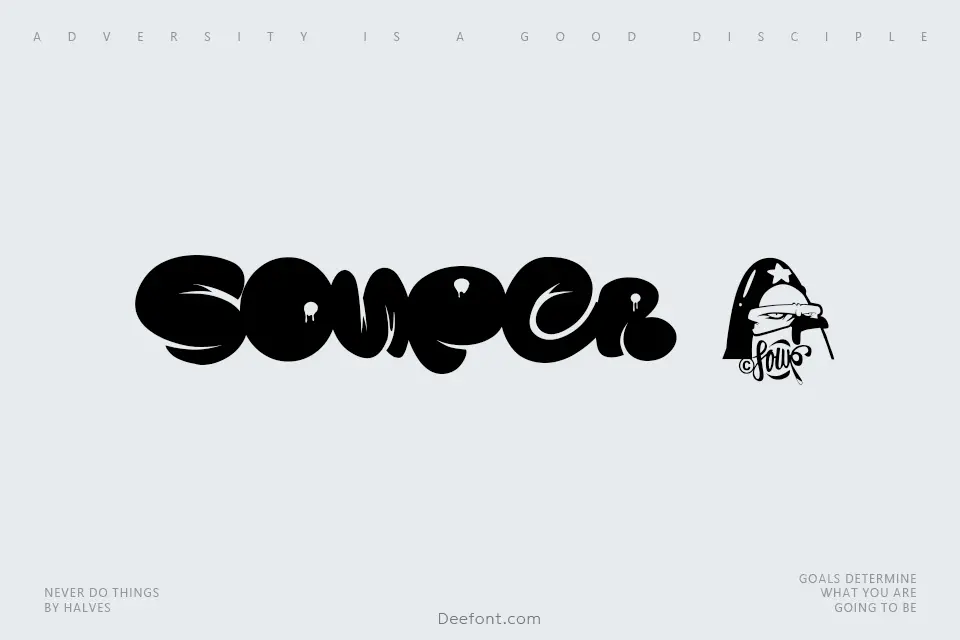
Souper 3 Font
Souper 3 is a vibrant script and graffiti font designed by Nic Ripz (soup) that brings playful, street art energy to your designs. With its bold, handwritten character, this font excels when rendered with outlines, creating striking visual impact for creative projects. The dynamic letterforms deliver a casual, artistic aesthetic perfect for posters, branding, and contemporary typography that demands attention and personality.
Designed by:soup (Nic Ripz)